Bic
by Bic Dunbar
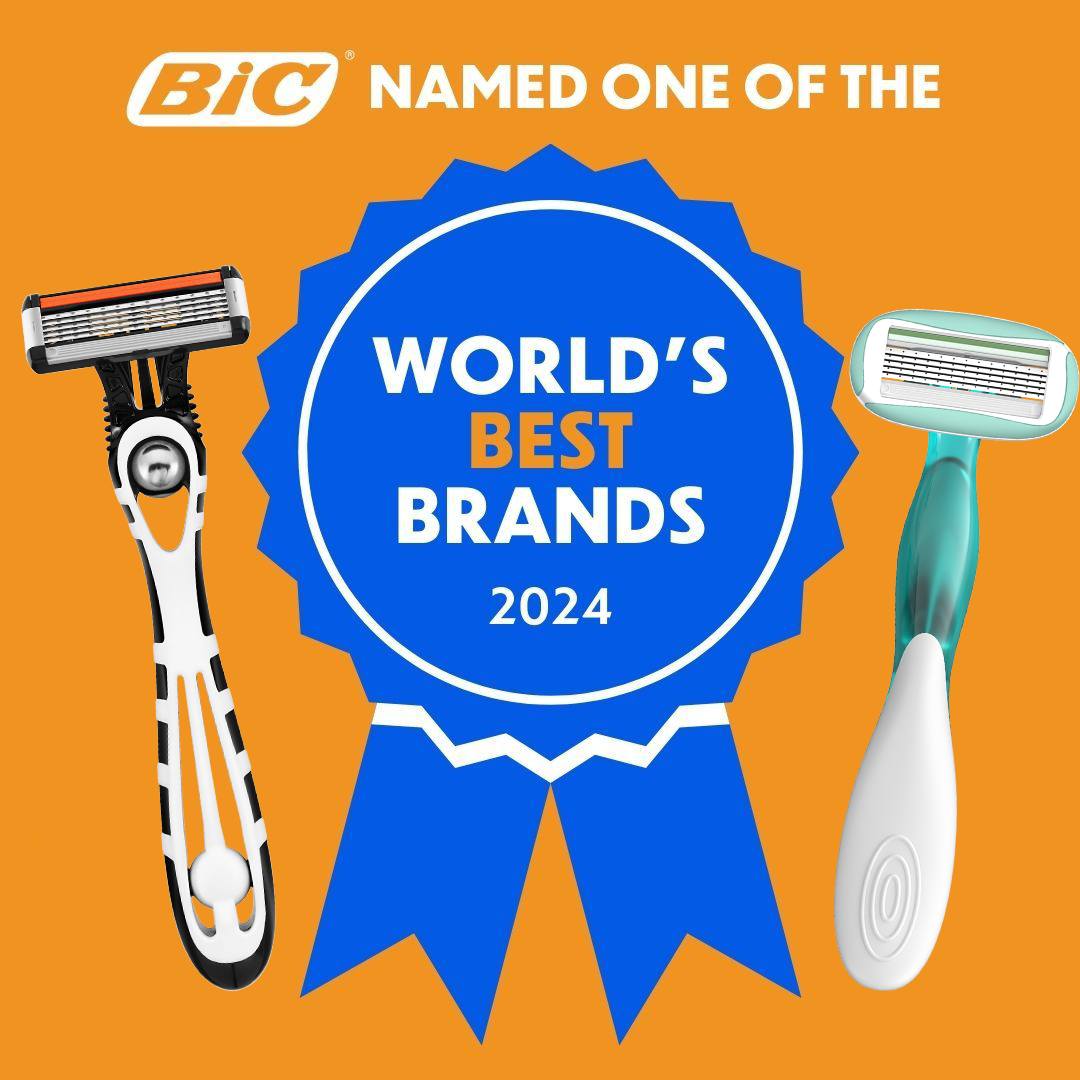
Dunbar is used as part of Bic’s global brand identity. Founded in 1945 in France, Bic is known worldwide for its iconic pens, lighters, stationery, and shaving razors. Their iconic Bic Cristal pen hangs in the MoMA as a permanent exhibit, and in 2024 Bic was named by Time magazine as one of the worlds best brand. Bic’s wide-ranging global ad campaigns show the versatility of Dunbar, including Dunbar Tall, Dunbar Low and Dunbar Text and from light to ultra-bold weights.